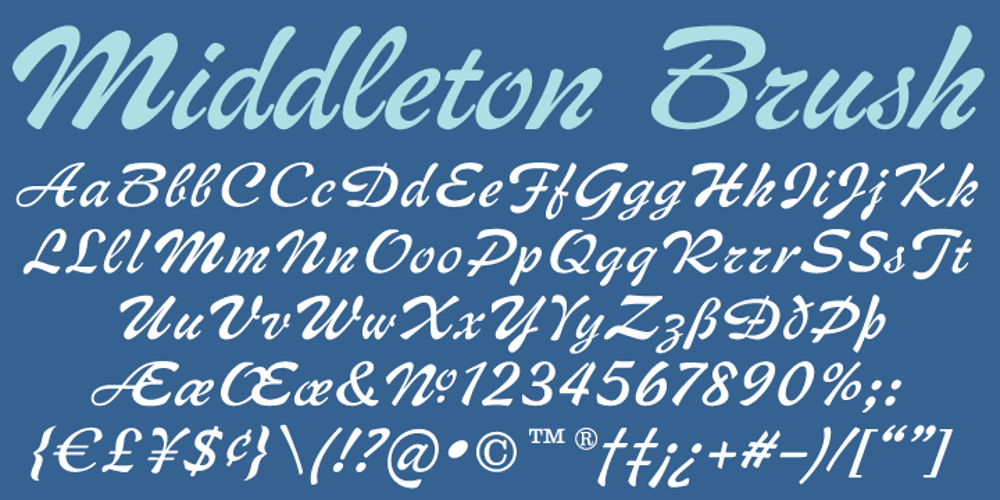
Middleton Brush Font Family was designed by Robert Hunter Middleton, Patrick Griffin and published by Canada Type. Middleton Brush contains 1 styles and family package options. One of the earliest fonts published by Canada Type was Coffee Script, Phil Rutter’s digitization of Robert Hunter Middleton’s 1962 brush script, Wave. In 2010, when the font was revisited for an update, it was shown that it was too light for applications under 24 pt, and too irregular for applications over 64 pt. So the face was redigitized from scratch. This new digitization maintains a soft contour and a steadier stroke, as well as much better outlines for use at both extremes of scaling. Language support was also greatly expanded, and many alternates were added to the redigitized character set. The name was also changed to Middleton Brush, to better reflect the origins of the design, which was Middleton’s response to Robert Smith’s popular Brush Script Middleton Brush comes in all popular formats. Language support includes Western, Central and Eastern European character sets, as well as Baltic, Esperanto, Maltese, Turkish, and Celtic/Welsh languages.